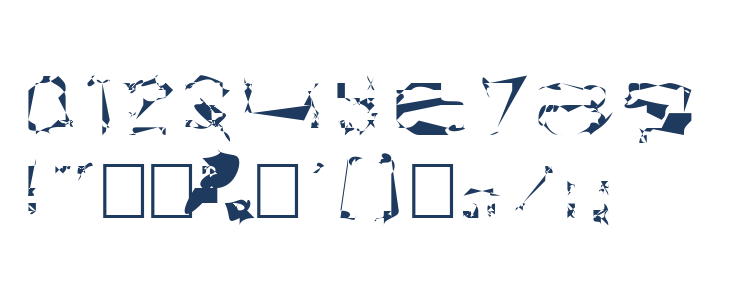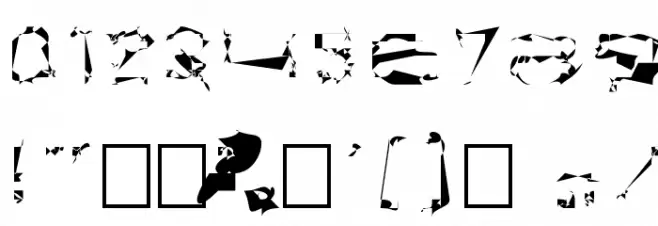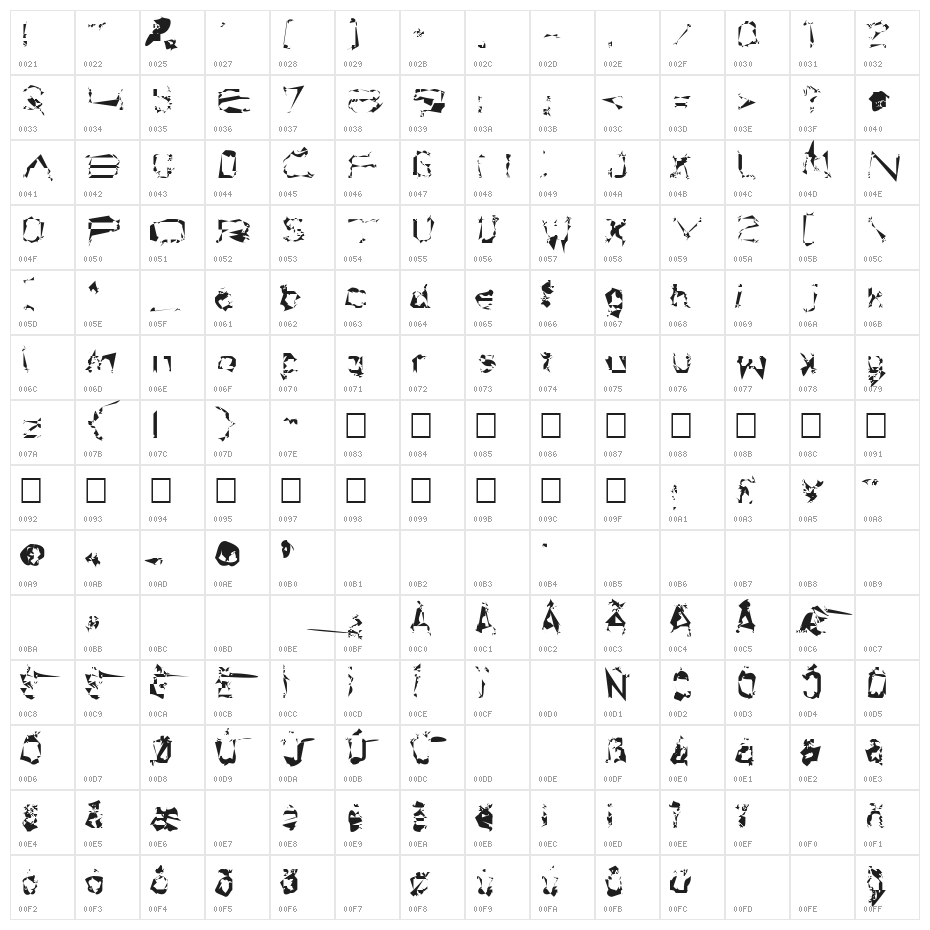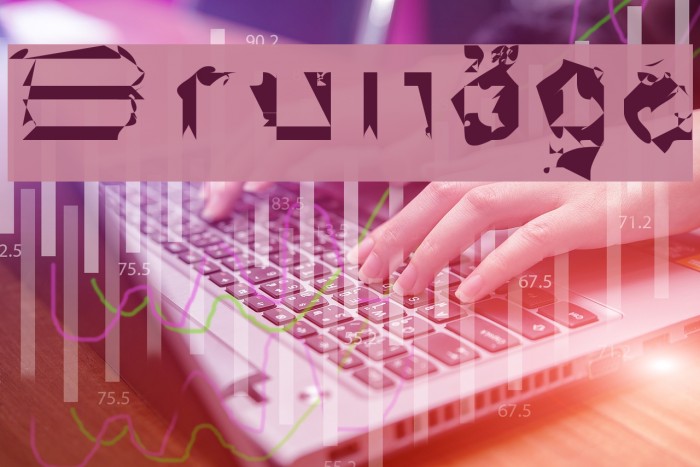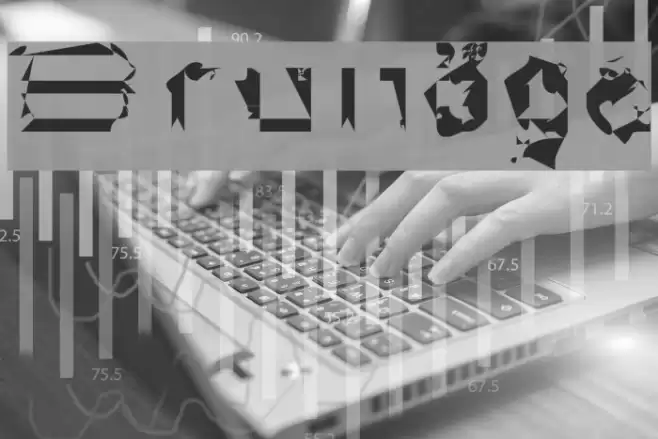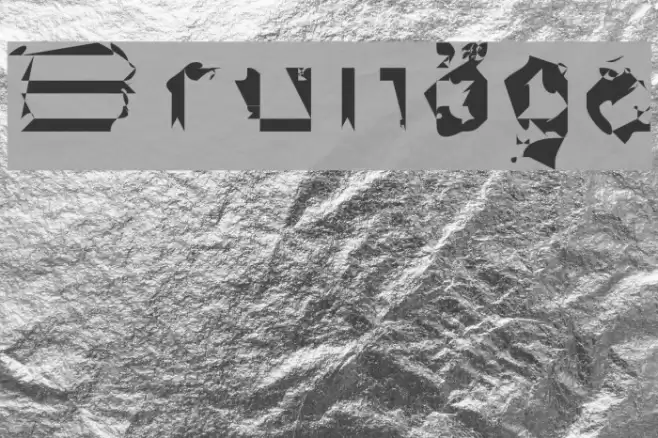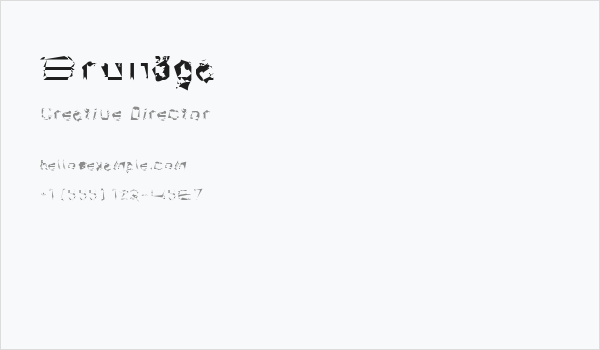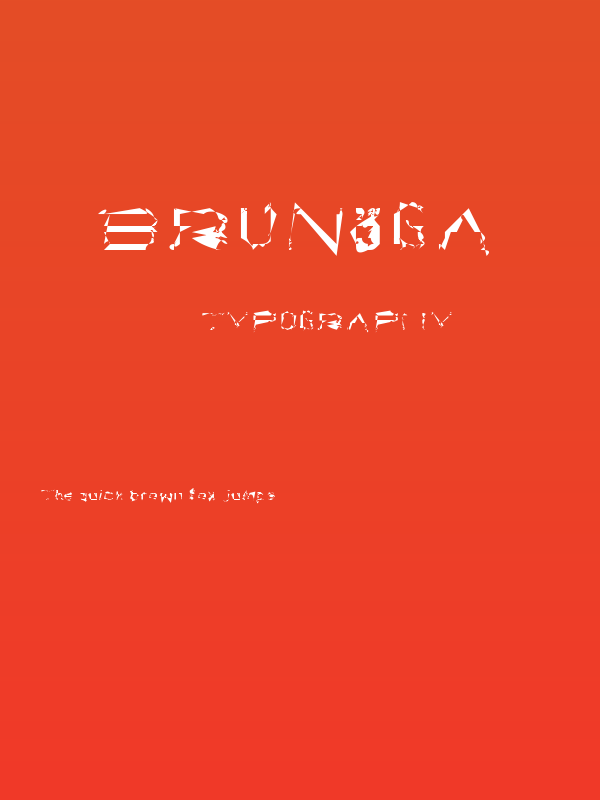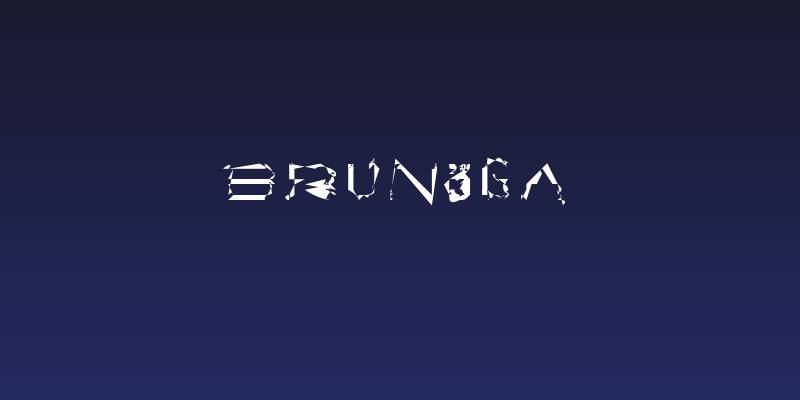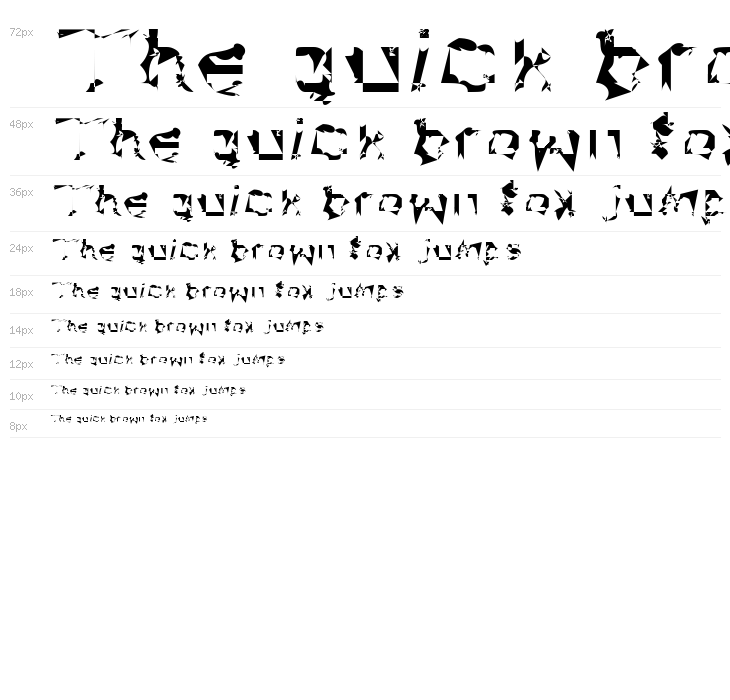
Brunöga Font
Brunöga Description
This font features a highly decorative and abstract design, characterized by fragmented and angular shapes that create a unique, chaotic appearance. The letters are composed of sharp, jagged edges and irregular forms, giving it an edgy and modern look. The uppercase and lowercase letters maintain a consistent style, with each character appearing as if it has been shattered or broken apart. Numbers and special characters follow the same design principles, ensuring uniformity across all elements. The font's unconventional style makes it stand out, ideal for projects that require a bold and artistic touch.
| Overall Style | Modern, Edgy, Artistic |
| Proposed Projects | Ideal for artistic projects, album covers, posters, and branding that seeks a bold, edgy aesthetic. |